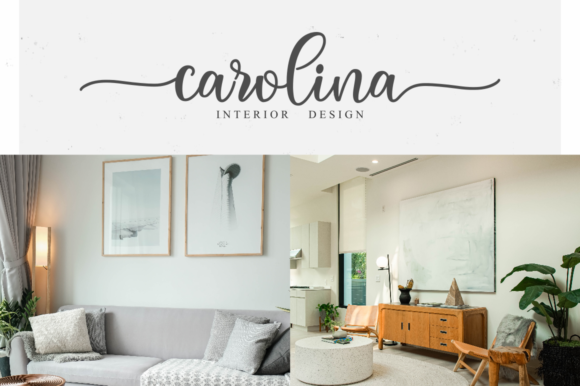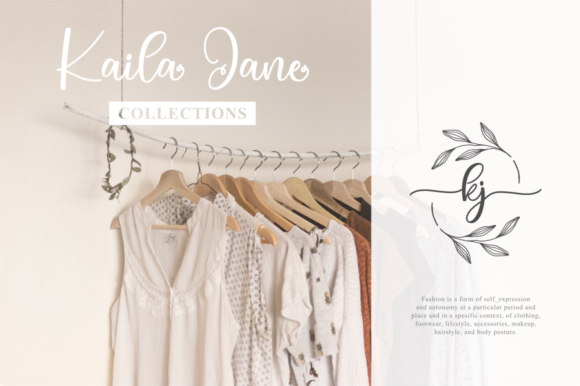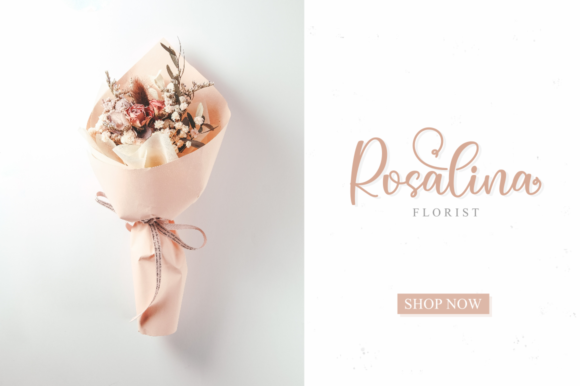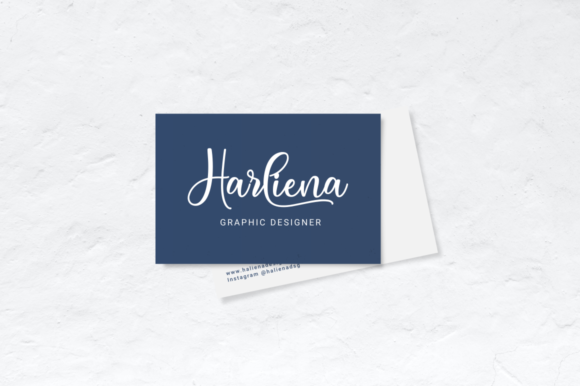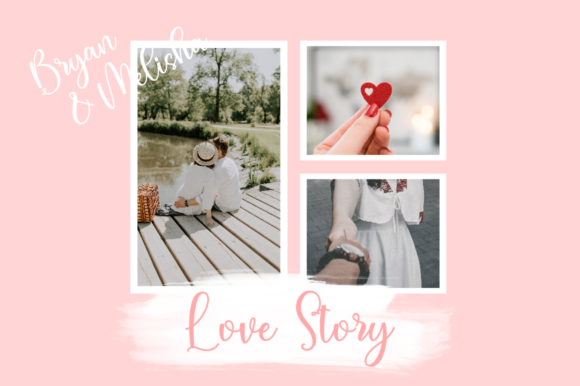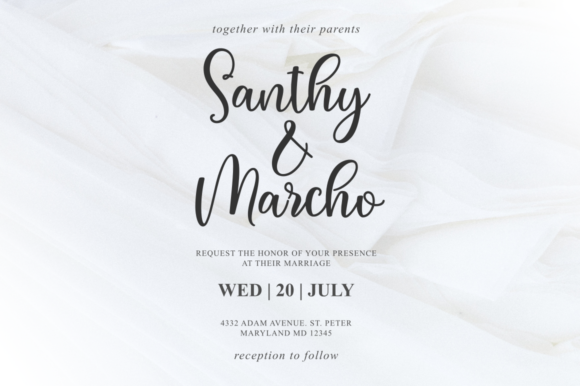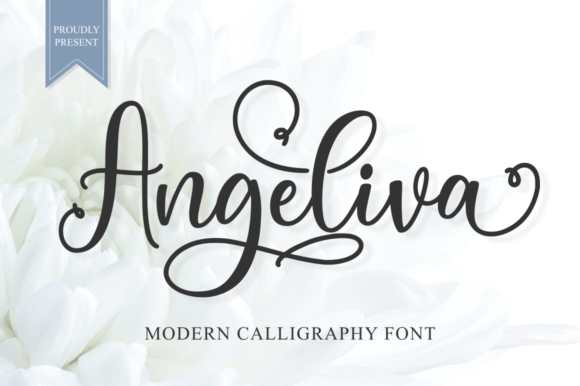
The Sweet Charm of Angeliva Font: A Designer’s Delight
I’ll never forget the time I was working on a project for a client who wanted a custom wedding invitation design. I had all the elements ready – the beautiful floral arrangement, the elegant layout, and the perfect color palette. However, I was stuck on finding the right font. The invitation needed to convey a sense of romance, whimsy, and sophistication all at once. That’s when I stumbled upon the Angeliva font, and it instantly became the missing piece to my design puzzle.
A Personal Review of Angeliva Font
As a designer, I can confidently say that Angeliva font has become one of my go-to choices for projects that require a touch of elegance and playfulness. Here’s what I love about it:
• ✨ Sweet and Cursive Handwritten Style: Angeliva boasts a beautiful, flowing script that adds a personal touch to any design.
• ✅ PUA Encoded for Easy Access: The font comes with PUA encoding, making it easy to access all glyphs and swashes without any hassle.
• 🌈 Versatile and Adaptable: Whether you’re working on a wedding invitation, a branding project, or a craft design, Angeliva fits right in.
Of course, no font is perfect, and there are a few minor quirks to be aware of:
• 🤔 Limited Use in Small Sizes: Like many script fonts, Angeliva can get a bit tricky to read in very small sizes. It’s best used in larger sizes where its beauty can shine.
• ⚠️ Requires Some Learning Curve: To get the most out of Angeliva, especially with its glyphs and swashes, you might need to spend a bit of time learning how to navigate its features.
The Story Behind Angeliva Font
While the exact origins of Angeliva might be shrouded in mystery, it’s clear that its design was inspired by a desire to create a beautiful, approachable script font. The creator aimed to capture the essence of handwritten elegance, making it suitable for a wide range of design projects. Whether it’s used for a wedding invitation, a logo, or a craft project, Angeliva brings a touch of warmth and personality.
Q: Is Angeliva suitable for body text?
A: While Angeliva is stunning as a display font, it’s best used sparingly in body text due to its script nature and potential readability issues in smaller sizes.
Q: Does Angeliva support multiple languages?
A: As a PUA encoded font, Angeliva offers extended character support. However, the extent of language support can depend on the specific characters and glyphs included, so it’s best to review the font documentation.